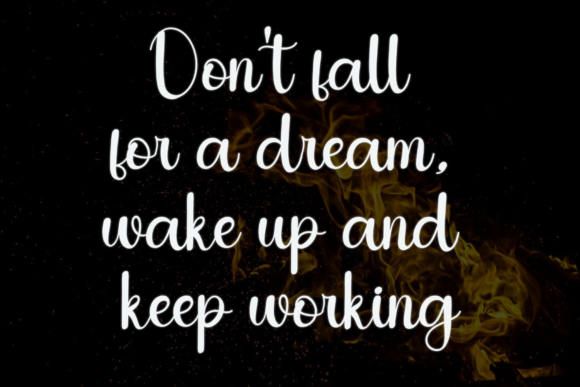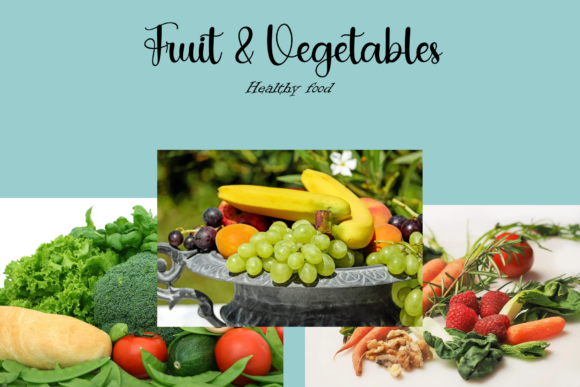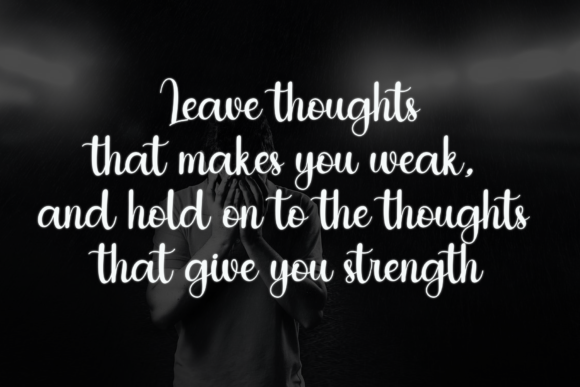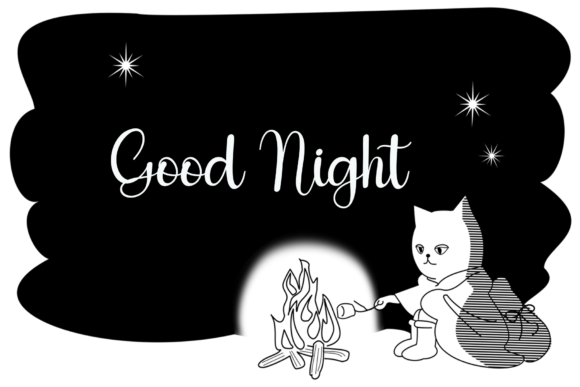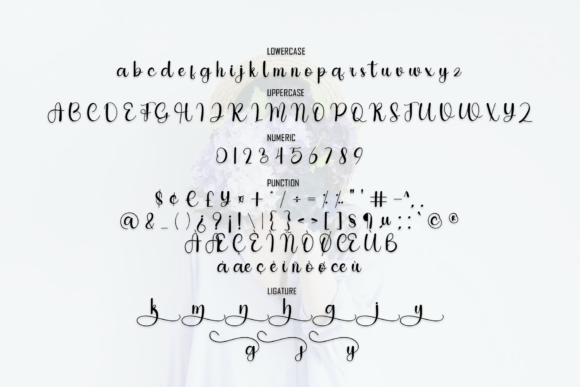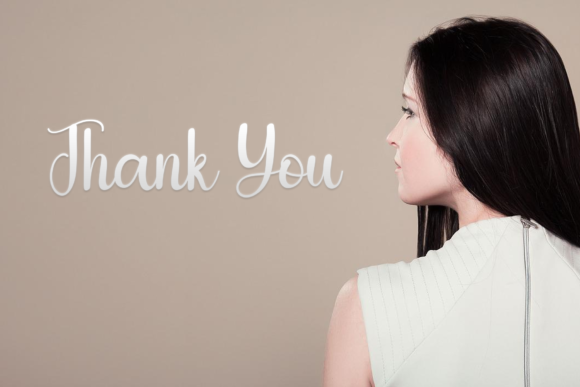
The Great Outdoors, In Fonts: A Deep Dive into Camping Font
I’ll never forget the time I was working on a camping-themed project for a client, and I just couldn’t seem to find the right font. I scoured the internet, tried out dozens of fonts, but nothing seemed quite right. That was until I stumbled upon Camping Font. It was like a breath of fresh air – a unique, round lettered handwritten font that perfectly captured the spirit of the great outdoors. In this article, we’ll take a closer look at Camping Font, its features, and how to make the most of it in your designs.
A Personal Review of Camping Font
So, what do I love about Camping Font? Here are a few things that stood out to me:
- ✨ Unique and quirky design that’s perfect for outdoor-themed projects
- 🎉 Supports a wide range of languages and has a large character set
- 💻 Great for both digital and print projects
Of course, no font is perfect, and Camping Font does have a few quirks. For example:
- 🤔 It can be a bit too playful for very formal projects
- ⚠️ Some of the letters are a bit condensed, which can make them difficult to read at very small sizes
The Story Behind Camping Font
Camping Font was designed by a team of creatives who wanted to capture the spirit of the great outdoors in a font. Inspired by the rugged beauty of nature, they carefully crafted each letter to evoke a sense of adventure and freedom. The result is a font that’s perfect for camping-themed projects, outdoor adventures, and anything else that needs a touch of the wild.
| Font Name | Camping Font |
| Author | PAYJHOshop |
| What is Camping Font? | Camping Font is a unique, round lettered handwritten font designed to evoke the spirit of the great outdoors. |
| What languages does Camping Font support? | Camping Font supports a wide range of languages, including English, Spanish, French, and many others. |